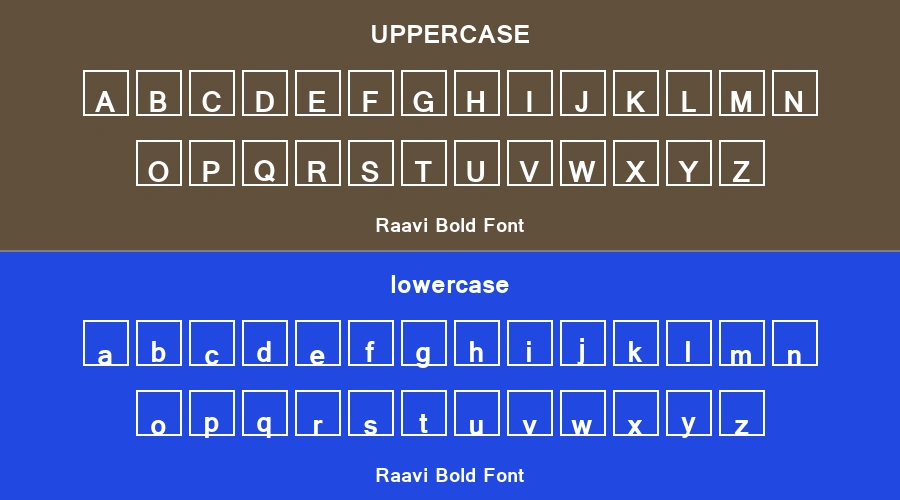
About Raavi Bold Font
Raavi Bold Font embodies typographic excellence through its masterful combination of width contrast and optical adjustments. Created for government publications, this typeface delivers exceptional versatility and market appeal across all applications. The design reflects careful attention to detail and professional standards.
Advanced capabilities include distinctive dramatic swashes and versatile mid-word alternates, giving designers creative control. When used in featured quotes, Raavi Bold Font exhibits remarkable OCR compatibility. The harmonious balance between character width and contemporary relevance sets this typeface apart.